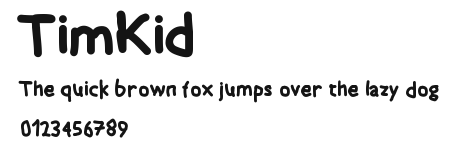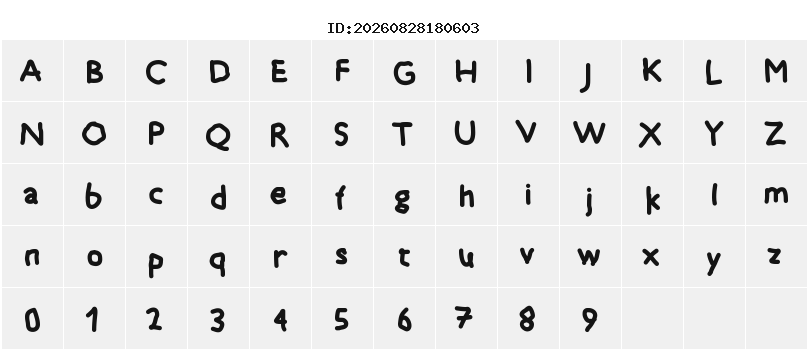
TimKid Preview
• Font Name: TimKid
• Full Font Name: TimKid
• PostScript Name: TimKid
About TimKid.ttf
TimKid.ttf is a modern, elegant sans-serif font designed for ultimate readability and visual harmony. Perfect for branding, headlines, web design, and print materials.